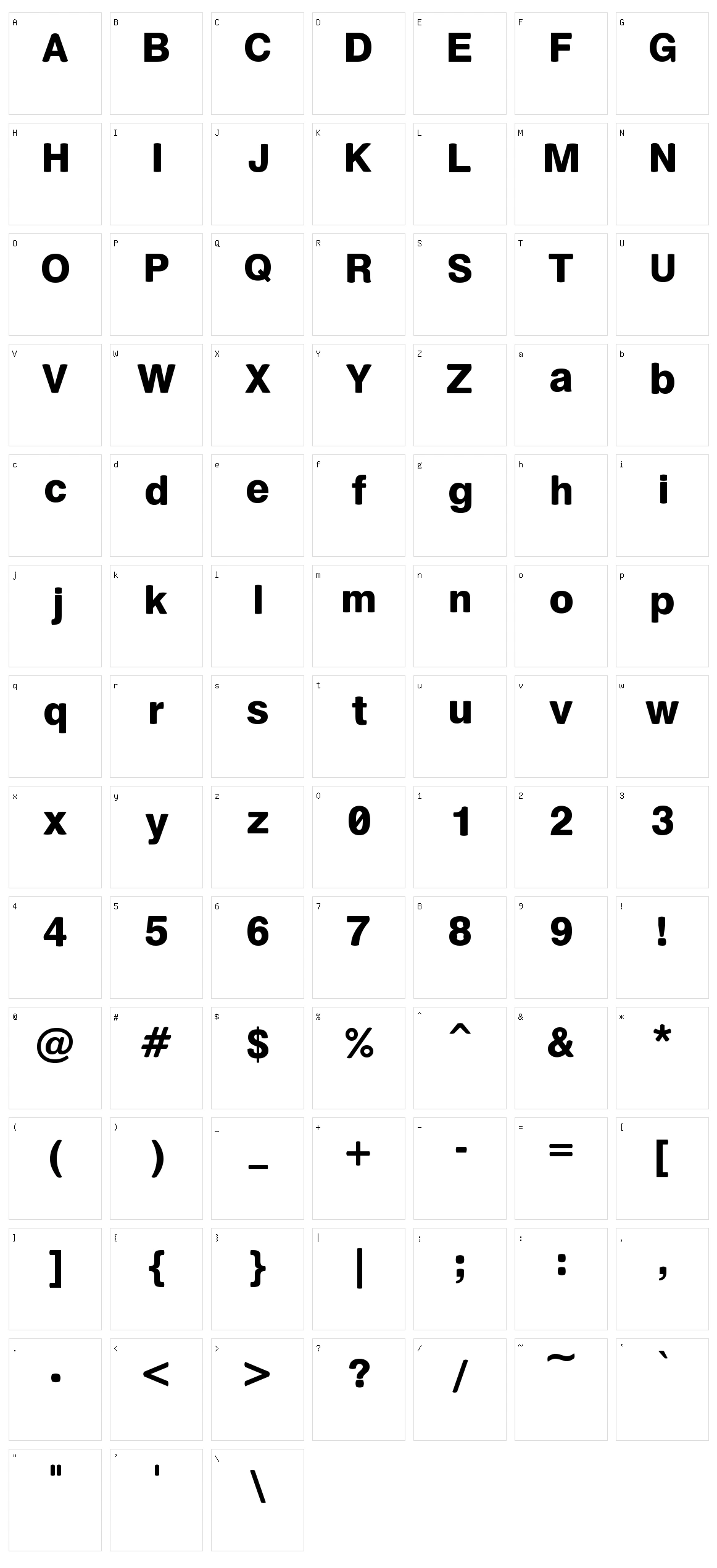
The free font PLZ is carefully designed by PLZ Umkreis, showcasing a thoughtful balance of creativity and usability and falls under the Sans serif font style. When you download the ZIP file, it contains only 25.19 KB of font files, making it lightweight and quick to download. Please review the license details below to understand permitted usage and distribution rights. If license information is not available, we recommend using this font for personal projects only or contacting the author directly for commercial usage permissions.